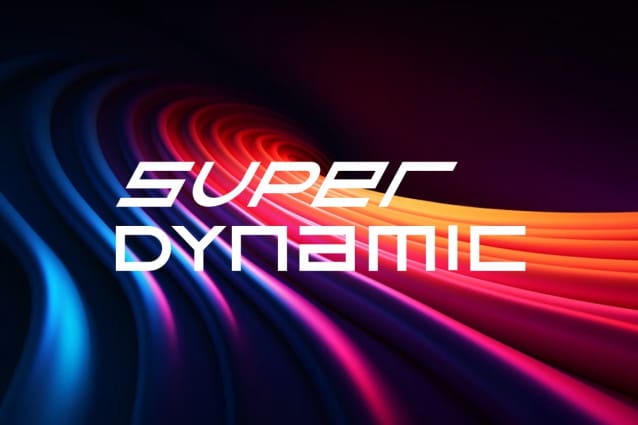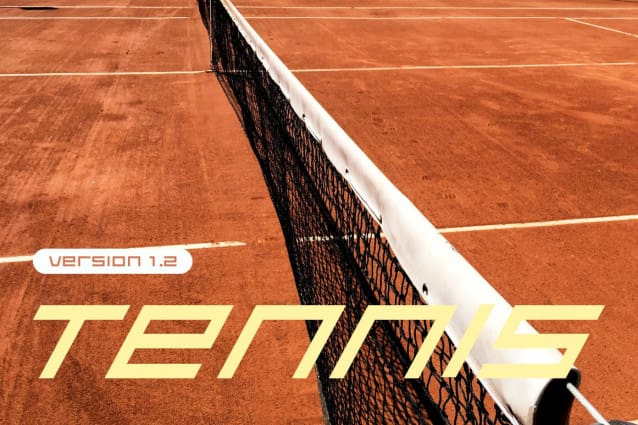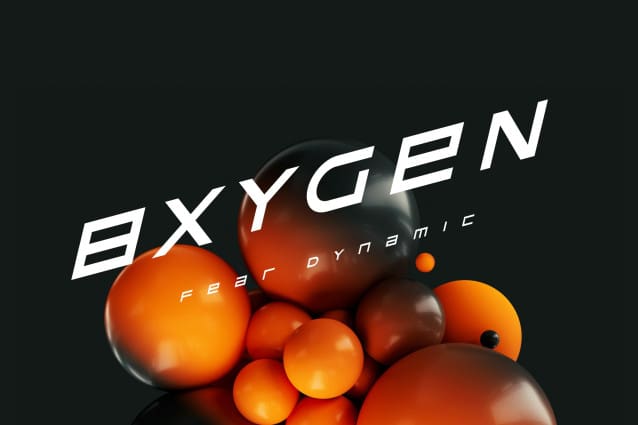
Fear Dynamic Italic Font
Fear Dynamic Italic Font, is a futuristic font, a font inspired by the visual of technology that we can find from logo, sci-fi movies, games, and the present gadgets. Designed with minimalist style and unique letterforms, a perfect choice to use on logos, labels, posters, packaging, books, movies, presentations, games, and much more!